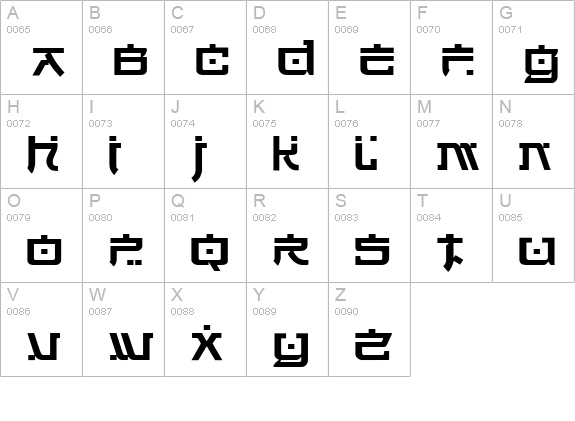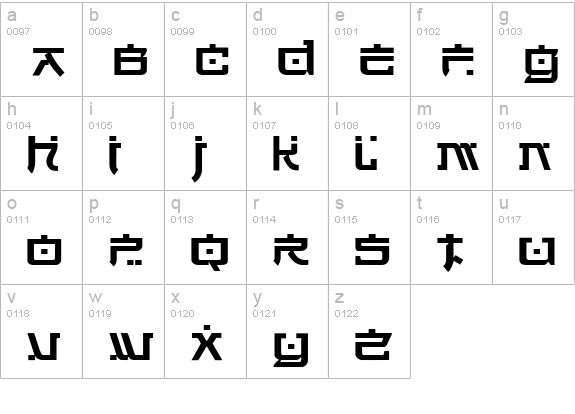
DSJapanCyr Normal Font Details
DSJapanCyr Normal is the standard, neutral variant in the DSJapanCyr typeface family \xE2\x80\x94 well suited to general body text, paragraphs, and standard typographic work.
DSJapanCyr Normal font is a versatile and elegant typeface that is perfect for a wide range of design projects. With its classic and timeless design, this font exudes sophistication and professionalism. The clean lines and balanced proportions make it highly readable in both print and digital media. What sets DSJapanCyr Normal font apart is its unique blend of traditional and modern elements, making it a great choice for various applications, such as branding, packaging, editorial design, and more. Whether you are working on a corporate project or a personal creative endeavor, this font will elevate your work to the next level. Best of all, DSJapanCyr Normal font is available for free download at FontsMarket.com. So go ahead and enhance your designs with this beautiful and versatile typeface today!